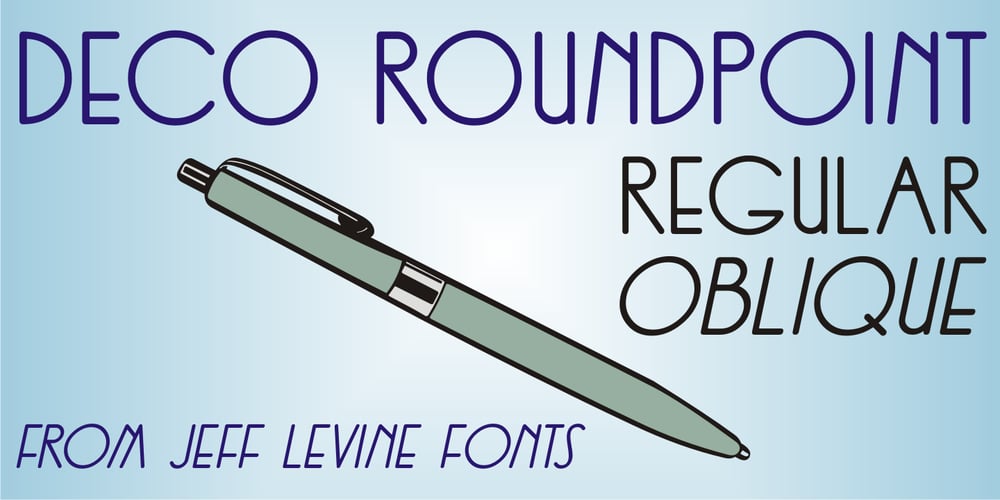
Deco Roundpoint JNL Font Family was designed by Jeff Levine and published by Jeff Levine. Deco Roundpoint JNL contains 2 styles and family package options. On the sheet music cover of the 1931 song “When the Autumn Leaves of Life Begin to Fall”, the title is hand-lettered using a round tipped nib pen. The combination of both an Art Deco lettering style and the rounded ends of the characters creates an exquisite, yet simple type design digitally preserved as Deco Roundpoint JNL; available in both regular and oblique versions.